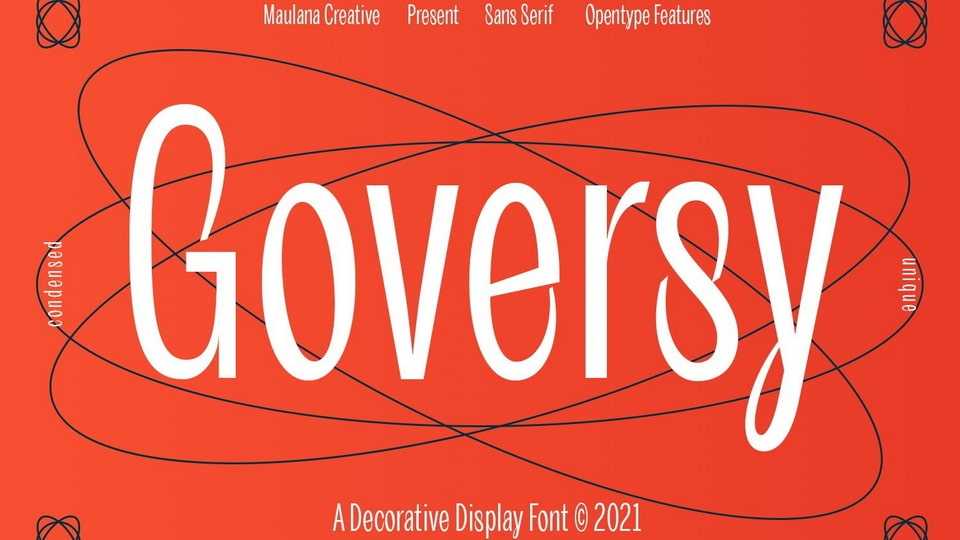
Download Goversy fontm, a decorative condensed display typeface with regular stroke, fun character with a bit of ligatures. Goversy font is good for logo design, social media, movie and books titles, a short text even a long text letter and good for your secondary text font with handwriting and script font.